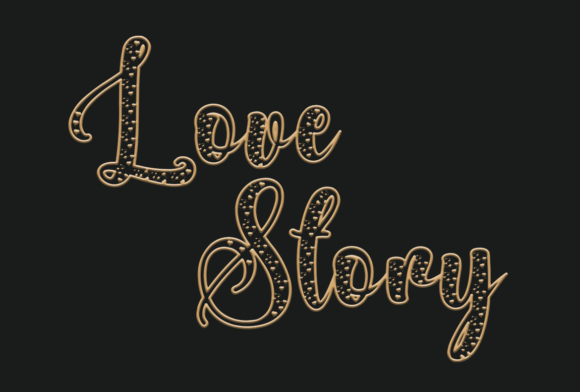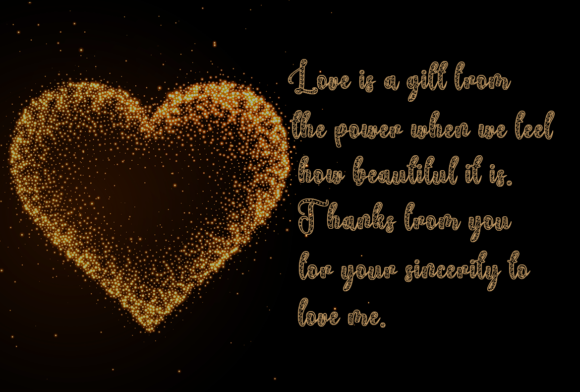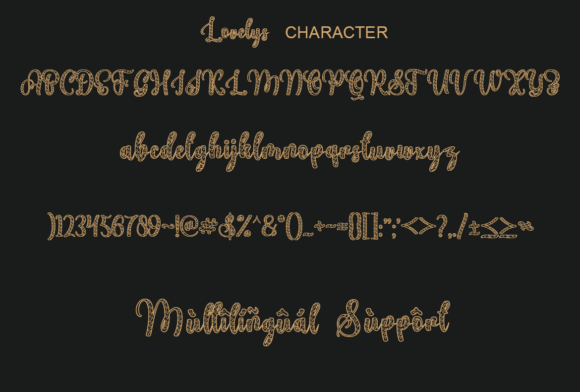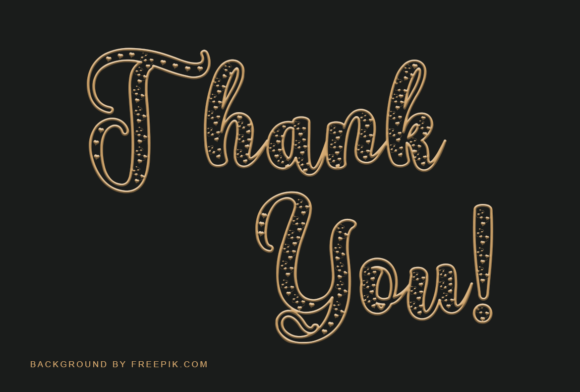
Introduction to Lovelys Font
As you sit at your desk, surrounded by papers, markers, and endless possibilities, the spark of creativity strikes. You’re about to embark on a new design project, and you’re searching for the perfect font to bring your vision to life. That’s when you stumble upon Lovelys Font – a stunning display font that exudes romance and elegance.
- Includes a single font style with multiple weights, offering flexibility for designers to experiment with different looks.
- Designed to be versatile and easy to use, making it an excellent choice for designers working on various creative projects.
Honest Review: Lovelys Font
As a designer, I’m always on the lookout for high-quality fonts that can elevate my creative projects. I recently stumbled upon Lovelys Font, and I’m excited to share my thoughts on it.
What works well for Lovelys Font is its unique and elegant design. The font is perfect for creating a romantic and feminine vibe in any design project, making it ideal for wedding invitations, fashion brands, or beauty websites. The transparent background also makes it easy to work with, allowing me to layer it with other design elements seamlessly. I also appreciate that it’s available for free download, making it a valuable resource for designers on a budget.
Here are some of the key features that make Lovelys Font stand out:
- Unique and elegant design
- Perfect for romantic and feminine designs
While Lovelys Font is a great addition to my design resources, I do wish it came in more variations to cater to different design styles. Additionally, the font may not be as versatile as some other fonts, making it less suitable for modern or minimalist designs.
Overall, I’m impressed with Lovelys Font and would recommend it to designers who are looking for a high-quality, elegant font for their creative projects.
Common Use Cases for Lovelys Font
Lovelys Font is perfect for a variety of creative projects, including logos, brochures, and social media graphics. Its high-quality design and transparent background make it a versatile and effective design resource.